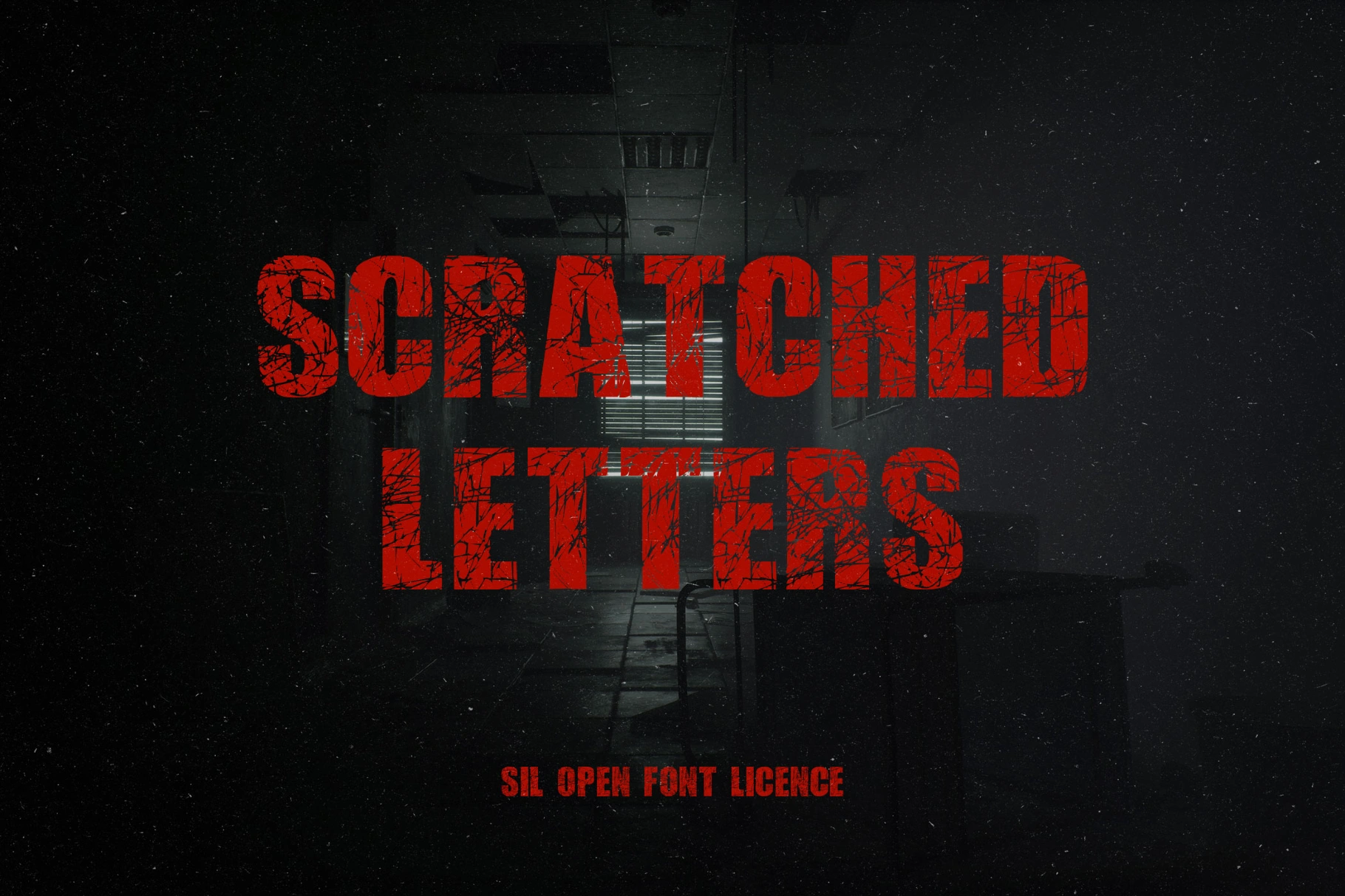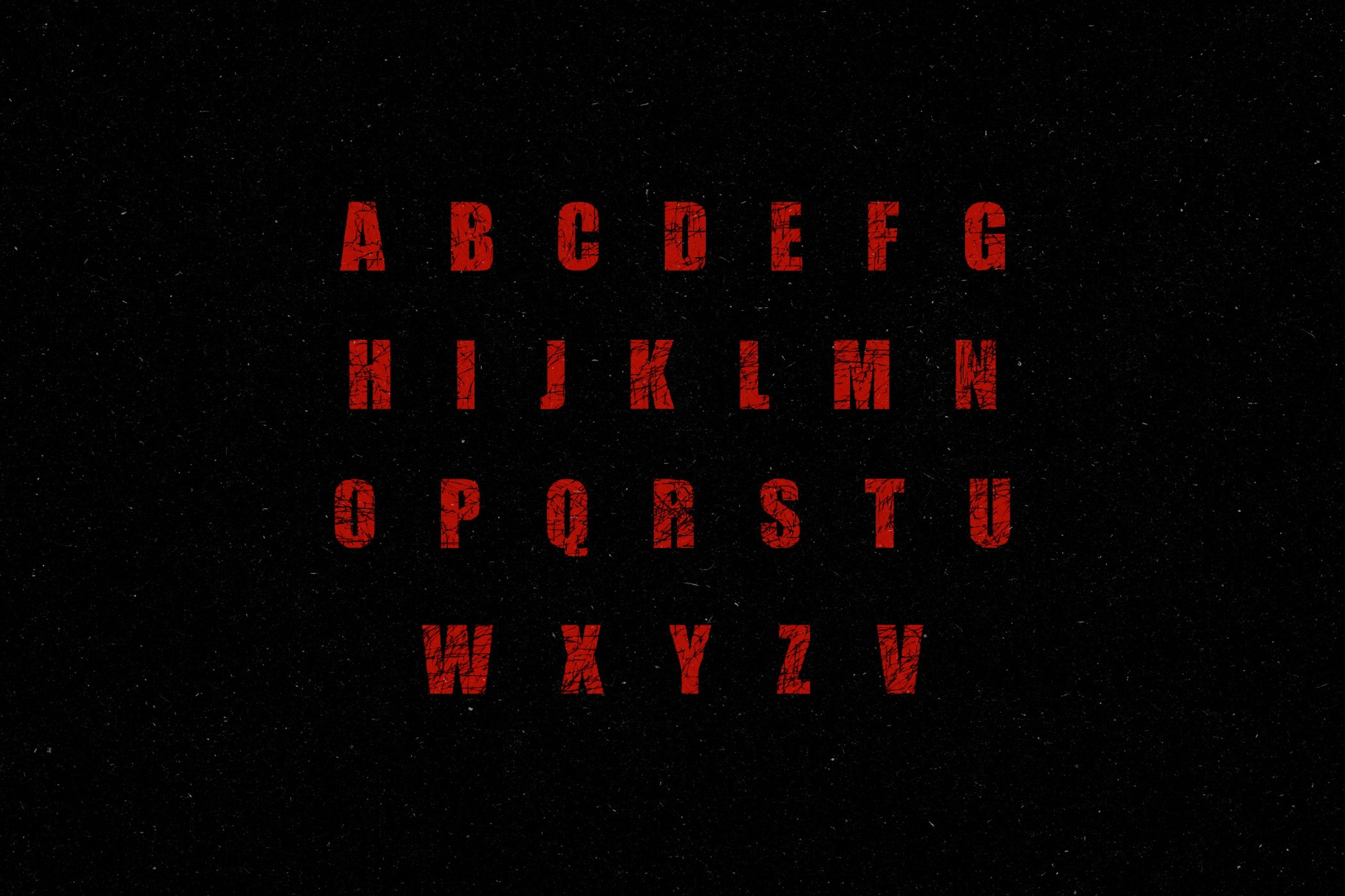
Scratched Letters Grunge Sans
Scratched Letters
Scratched Letters scrapes rough, hand-carved glyphs across the line with a texture straight out of horror movie posters. The distressed strokes and uneven edges suit metal album covers, festival posters, streetwear graphics, Halloween promos, YouTube thumbnails, game titles, grunge packaging, and more.